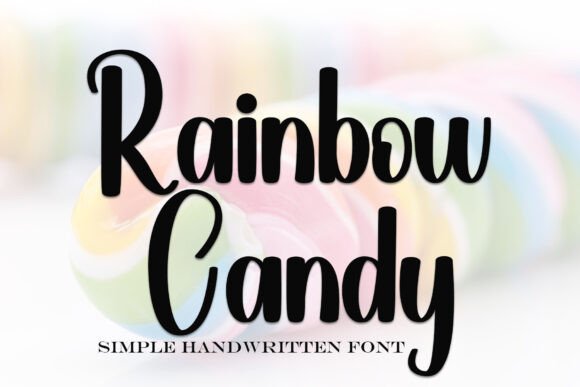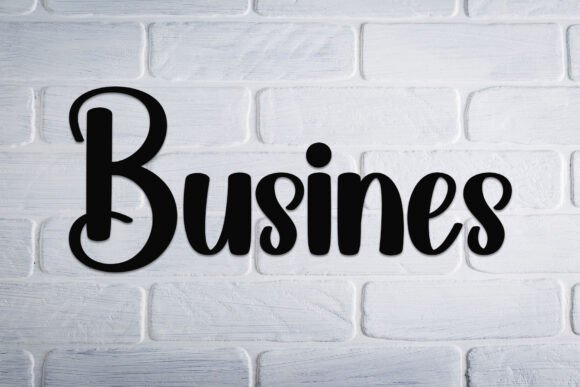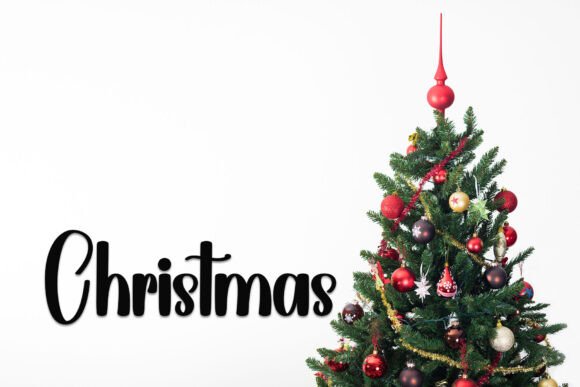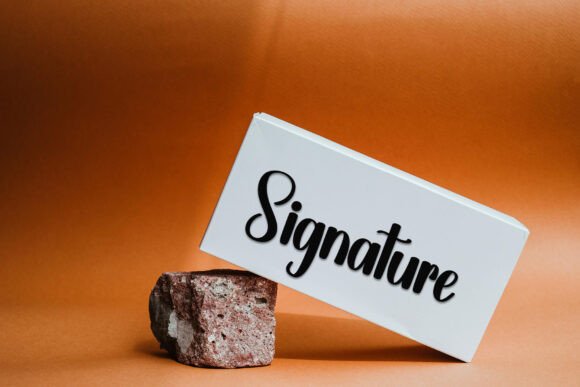
Rainbow Candy Font
About the Rainbow Candy Font
The Rainbow Candy Font offers a perfect balance of form and function for your design needs. Rainbow Candy is a sweet and cursive handwritten font. This gentle font will look gorgeous on a variety of design ideas. It will add a joyful and romantic touch to each of your projects! Perfectly fit for branding, logo, wedding things, greeting cards, fashion, lookbook, marketing promotion, and any time you want your design to look fancy and elegant but still casual.
Rainbow Candy’s playful, yet elegant, nature makes it ideal for branding projects targeting a young, female demographic, particularly in fashion, beauty, or lifestyle sectors. It excels in short headlines, logos, and social media graphics where its handwritten charm shines. However, its cursive style is less suitable for body text or UI elements, where readability is paramount. Avoid using it for large blocks of text.
Pairing Rainbow Candy effectively requires considering its inherent whimsicality. A clean sans-serif like Montserrat or Lato would provide a strong contrast and enhance readability in supporting text. For a more sophisticated look, consider pairing it with a delicate serif font such as Playfair Display or Lora.
The font’s overall personality is best described as cheerful and romantic, lending itself to projects requiring a touch of sweetness and femininity. Avoid using it in contexts that demand seriousness or professionalism.
Rainbow Candy Font Usage Examples
Rainbow Candy Font Example